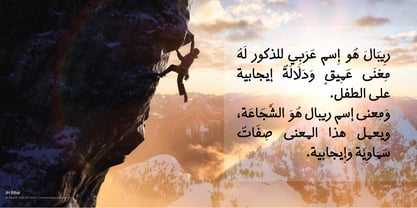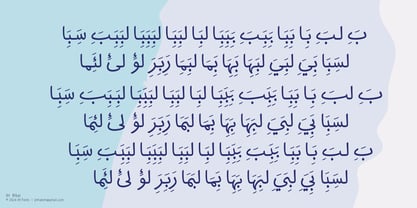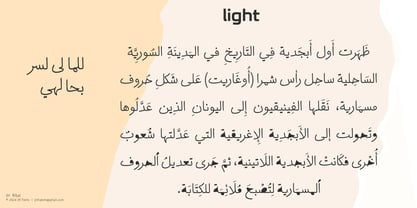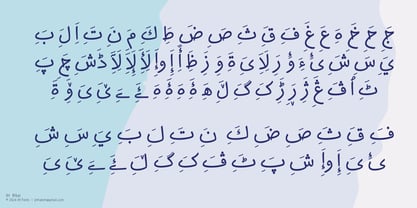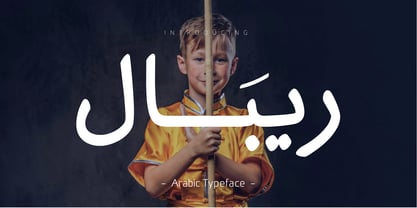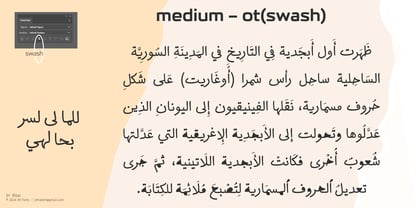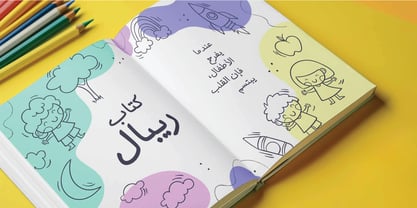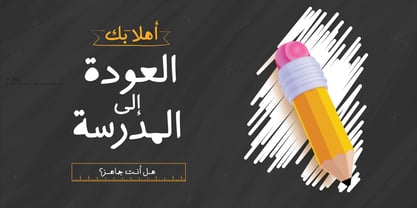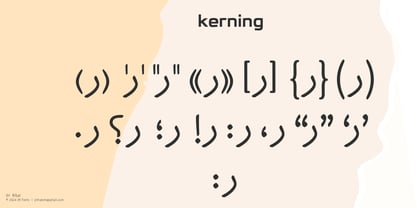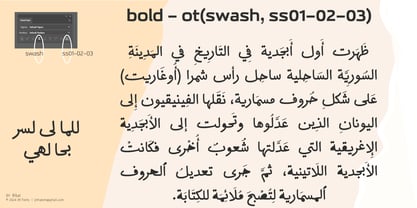
JH Ribal
by JH Fonts
JH Ribal is an arabic handwriting type; It follows the basic naskh script and consists of six weights.
It is best suited for casual long running text, advertising and events posters.
Designers: Joe Hatem
Foundry: JH Fonts